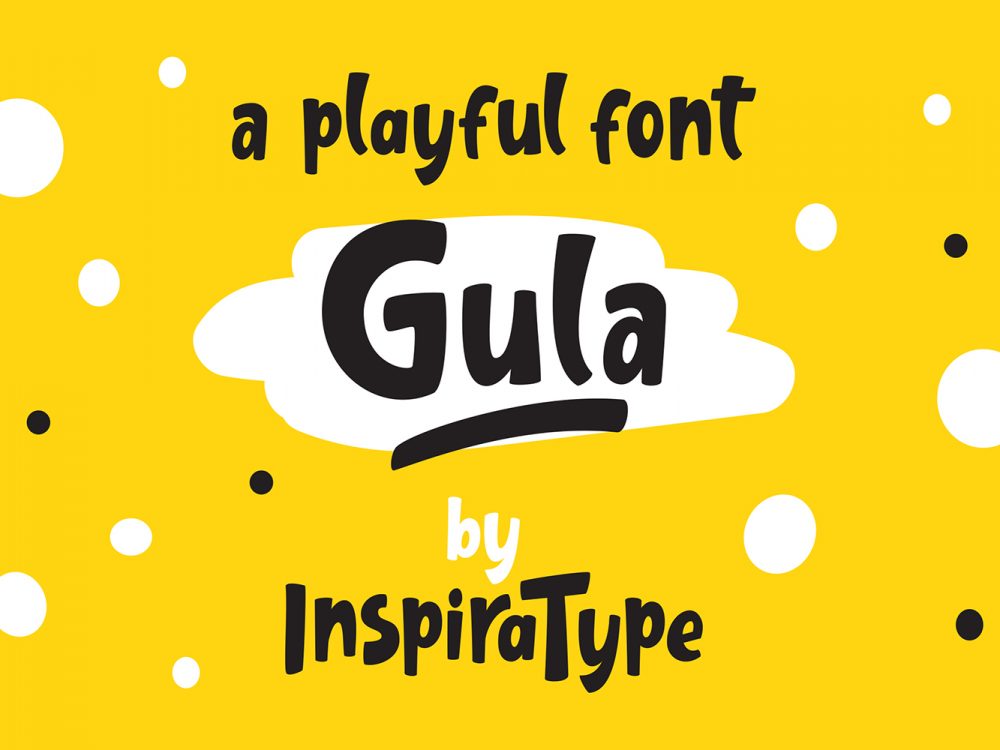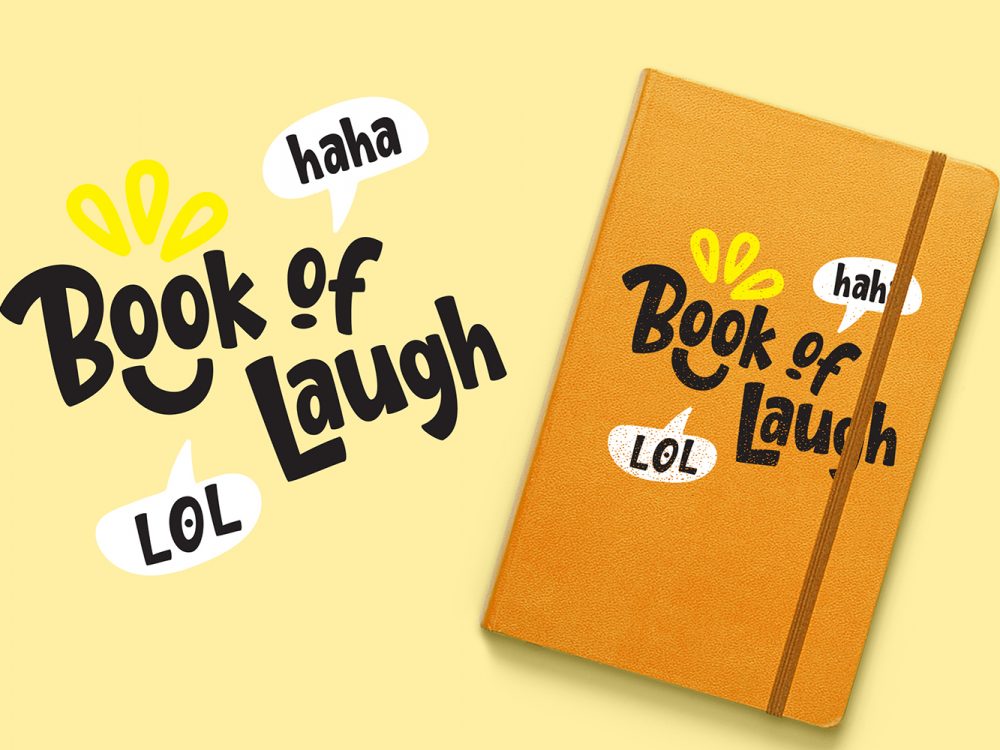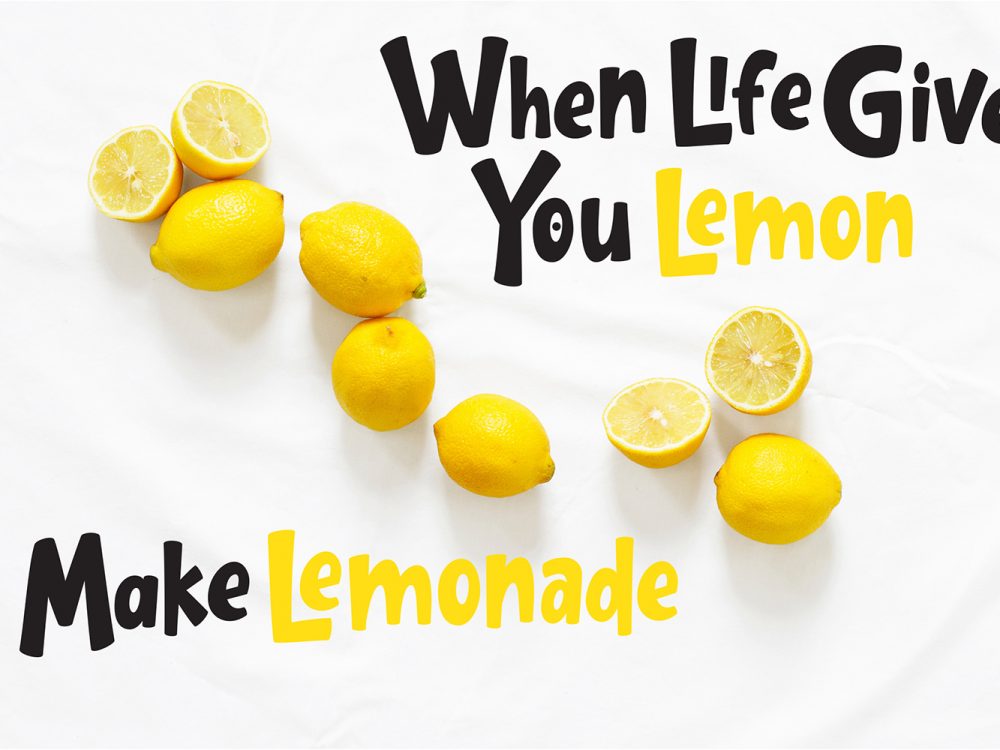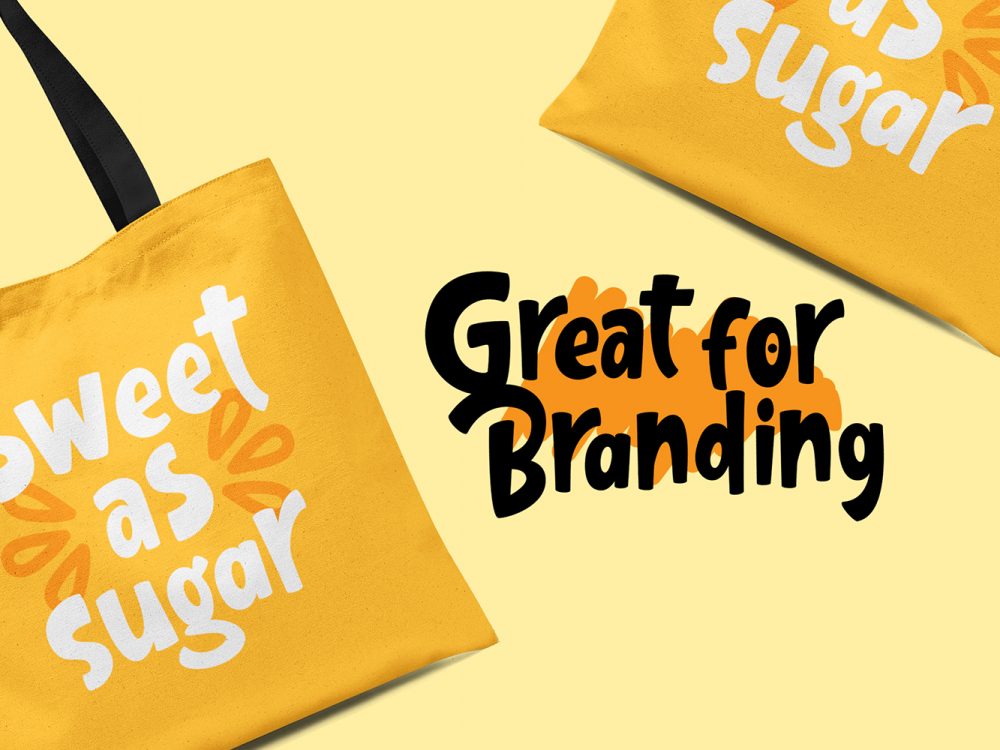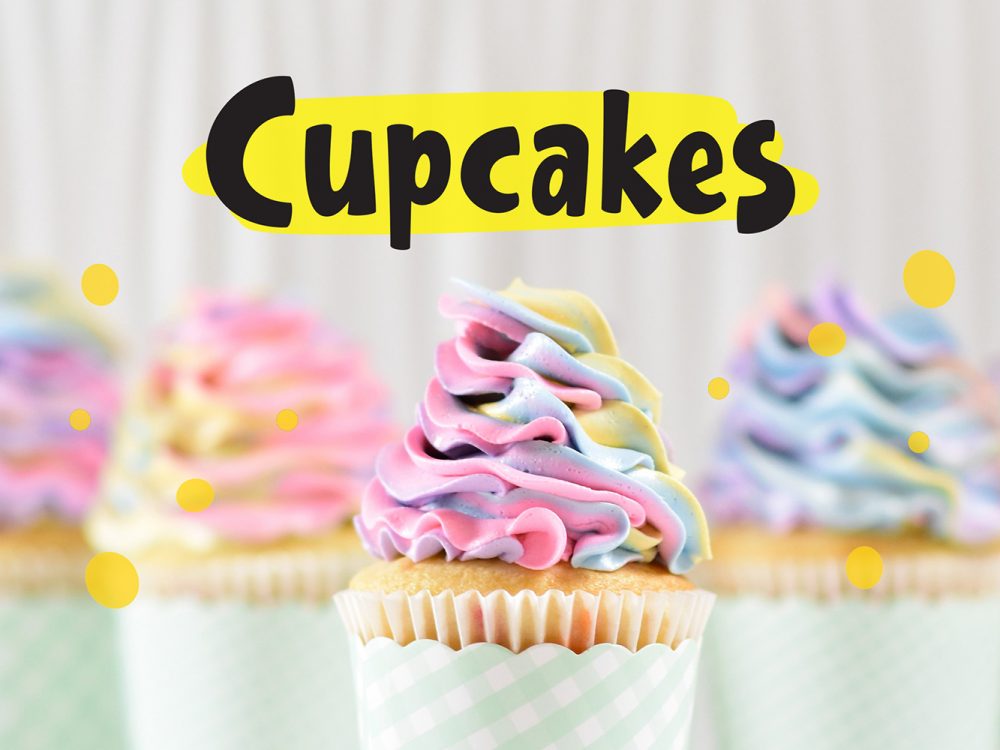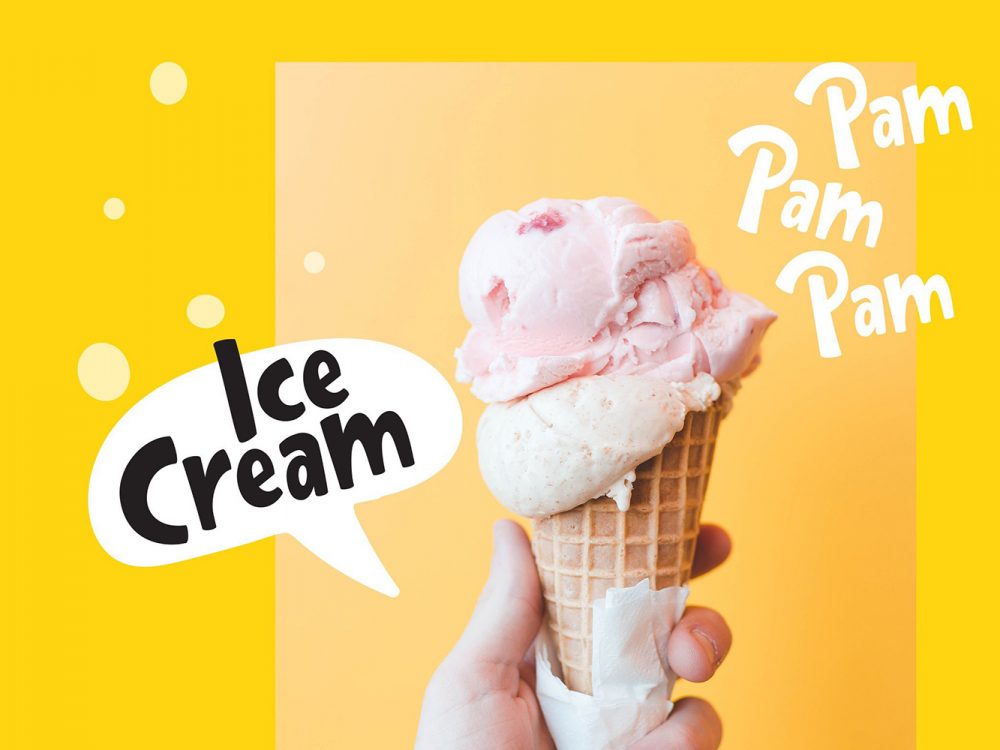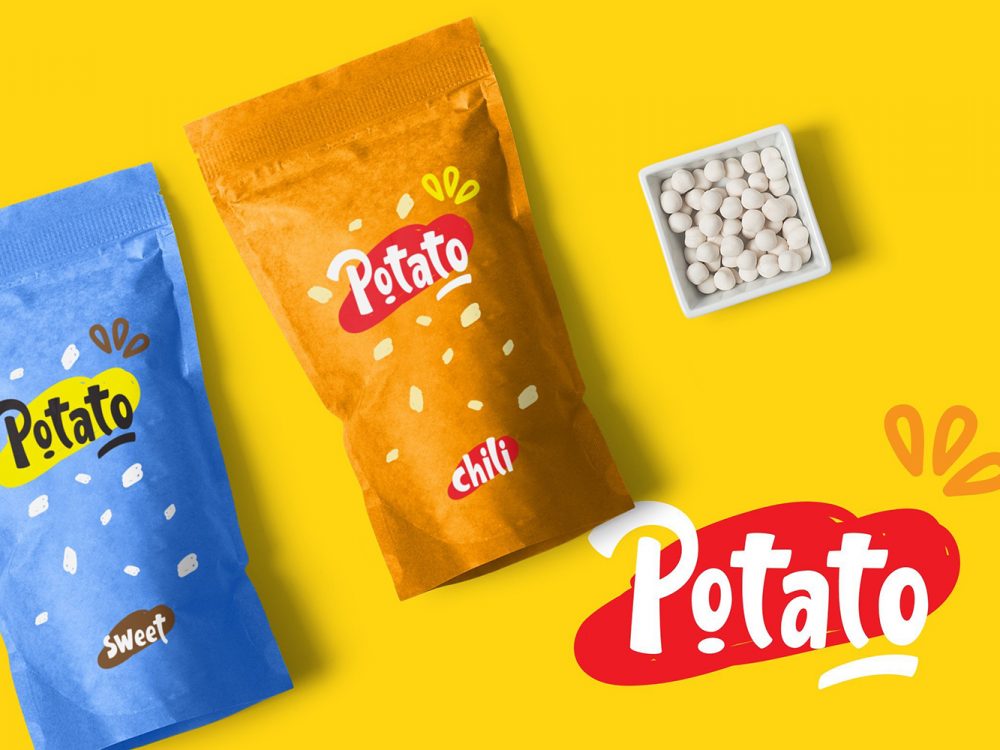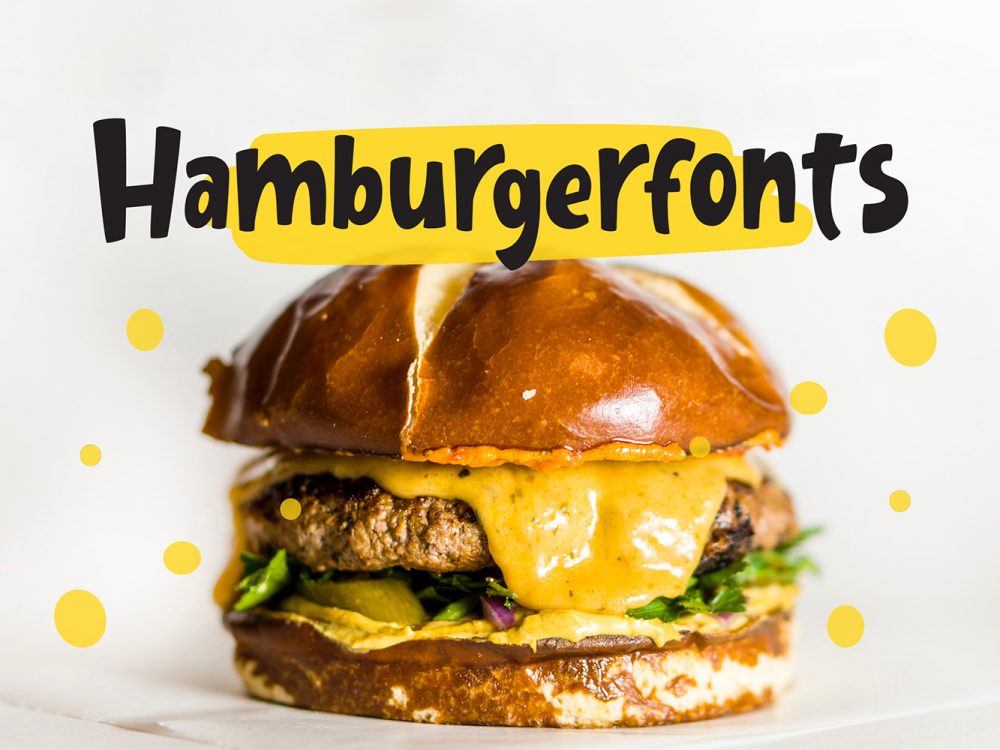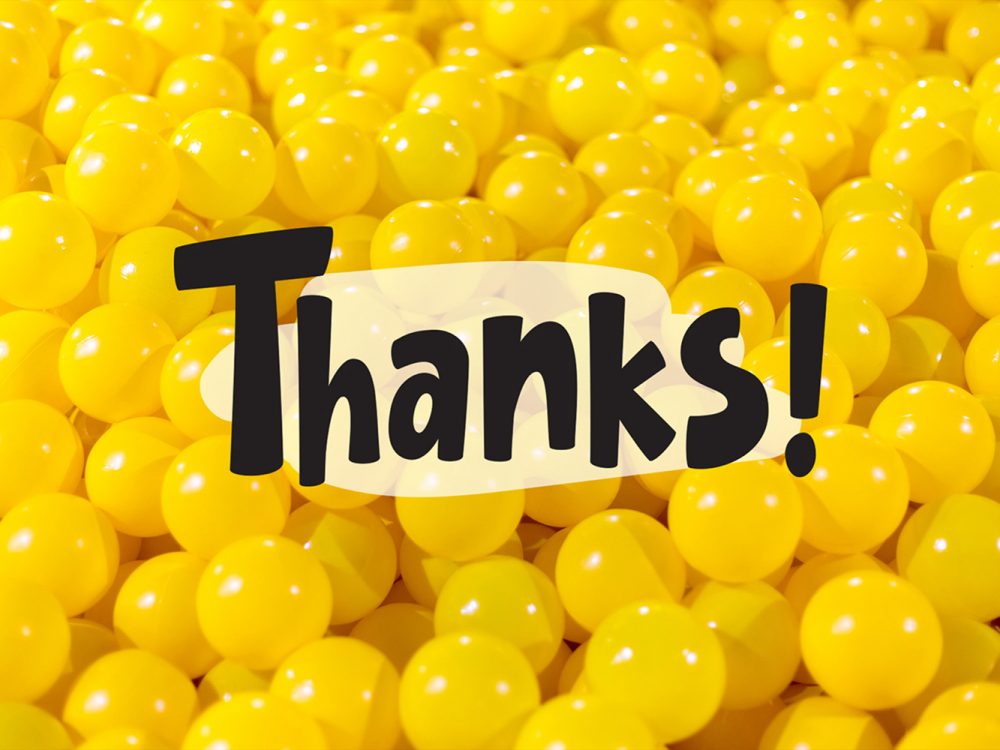
Gula Playful Font Demo
Gula Playful Font Demo is an interesting unusual bold typeface that is perfect for various funny comic-style design projects. Use this font to create a variety of posters, invitations, postcards, flyers, prints, and more. If you wish to access more features and use them for commercial work please buy the full version.